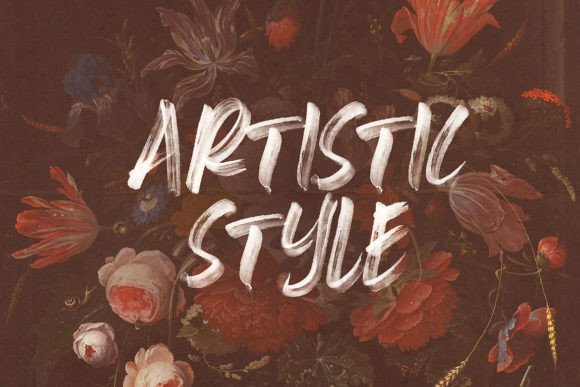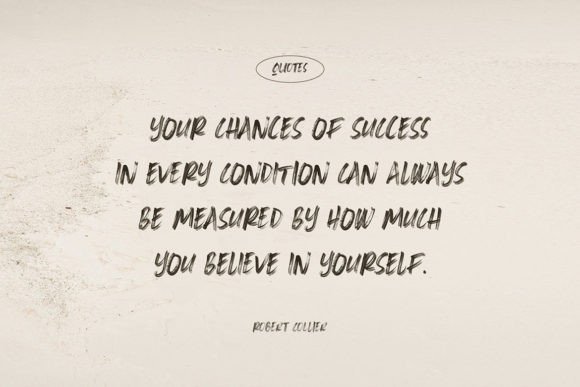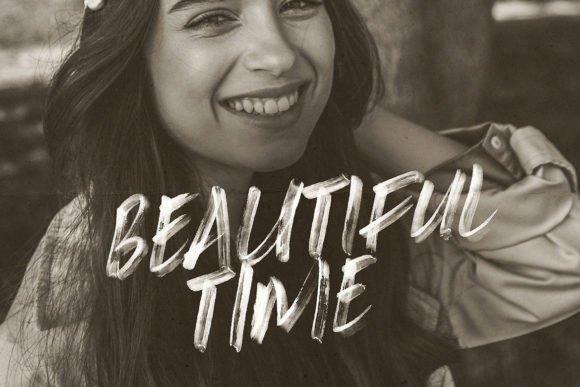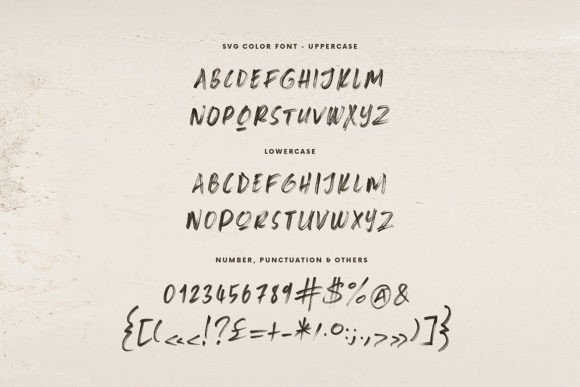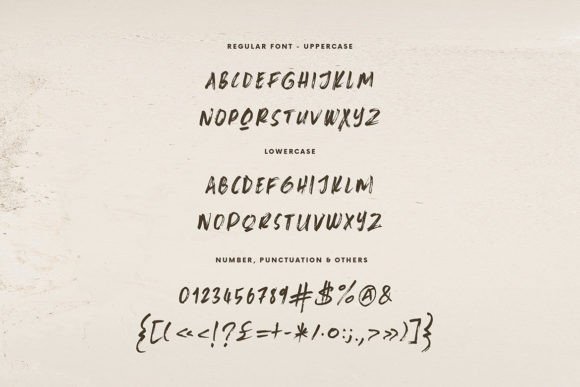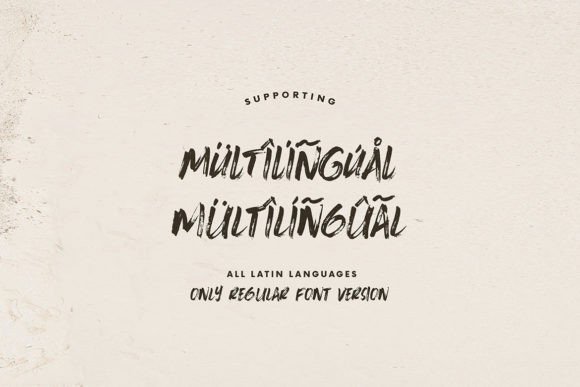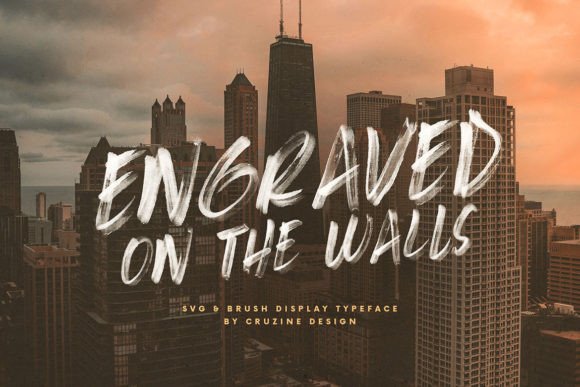
Unleashing Creativity with Engraved on the Walls Font
In the realm of typography, fonts play a pivotal role in conveying messages, expressing emotions, and creating lasting impressions. Among the myriad of fonts available, Engraved on the Walls stands out as a modern bold brush script font that embodies strength, individuality, and a touch of edginess. This article delves into the characteristics, applications, and benefits of using Engraved on the Walls in design projects, offering insights for designers and crafters alike.
Characteristics of Engraved on the Walls Font
Engraved on the Walls is distinguished by its thick, expressive strokes that give it a unique and powerful appearance. The font features cursive letterforms that flow with a sense of dynamism and fluidity, making it instantly recognizable. Its character shapes are not only bold but also uniquely designed, contributing to its edgy and rebellious vibe. This font is perfect for projects that require a contemporary and bold aesthetic, making it a versatile tool for designers.
Applications of Engraved on the Walls Font
The versatility of Engraved on the Walls font makes it suitable for a wide range of design applications. Here are some of the key areas where this font can make a significant impact:
- Branding: For businesses looking to establish a bold and memorable brand identity, Engraved on the Walls can be a game-changer. Its unique and edgy appearance can help brands stand out in a crowded market.
- Packaging: Product packaging is an essential aspect of marketing, and the right font can elevate a product’s appeal. Engraved on the Walls can add a contemporary and bold touch to packaging designs, making products more noticeable on store shelves.
- Editorial Design: For editorial projects such as magazines, newspapers, and blogs, Engraved on the Walls can be used to create eye-catching headlines and titles that demand attention. Its bold aesthetic can add a modern twist to traditional editorial designs.
Benefits of Using Engraved on the Walls Font
Choosing the right font for a design project can significantly influence its outcome. Here are some benefits of incorporating Engraved on the Walls into your designs:
- Uniqueness: In a sea of generic fonts, Engraved on the Walls offers a fresh and distinctive look that can set your designs apart.
- Versatility: Its bold and expressive strokes make it suitable for a variety of projects, from digital designs to print materials.
- Emotional Connection: The edgy and rebellious vibe of Engraved on the Walls can help create an emotional connection with the audience, making your message more impactful.
Tips for Using Engraved on the Walls Effectively
To maximize the potential of Engraved on the Walls, consider the following tips:
- Pair with Complementary Fonts: For optimal results, pair Engraved on the Walls with simpler fonts to create contrast and enhance readability.
- Adjust Size and Color: Experiment with different sizes and colors to ensure the font complements your design and stands out appropriately.
- Consider the Context: Ensure that the font aligns with the message and tone of your project. Engraved on the Walls is ideal for bold statements and contemporary designs.
Engraved on the Walls font offers a bold and expressive solution for designers seeking to infuse their projects with a modern, edgy aesthetic. Its unique character shapes, cursive letterforms, and thick strokes make it a versatile tool for branding, packaging, and editorial design. By understanding its characteristics, applications, and benefits, designers and crafters can unlock new creative possibilities and elevate their designs to new heights.